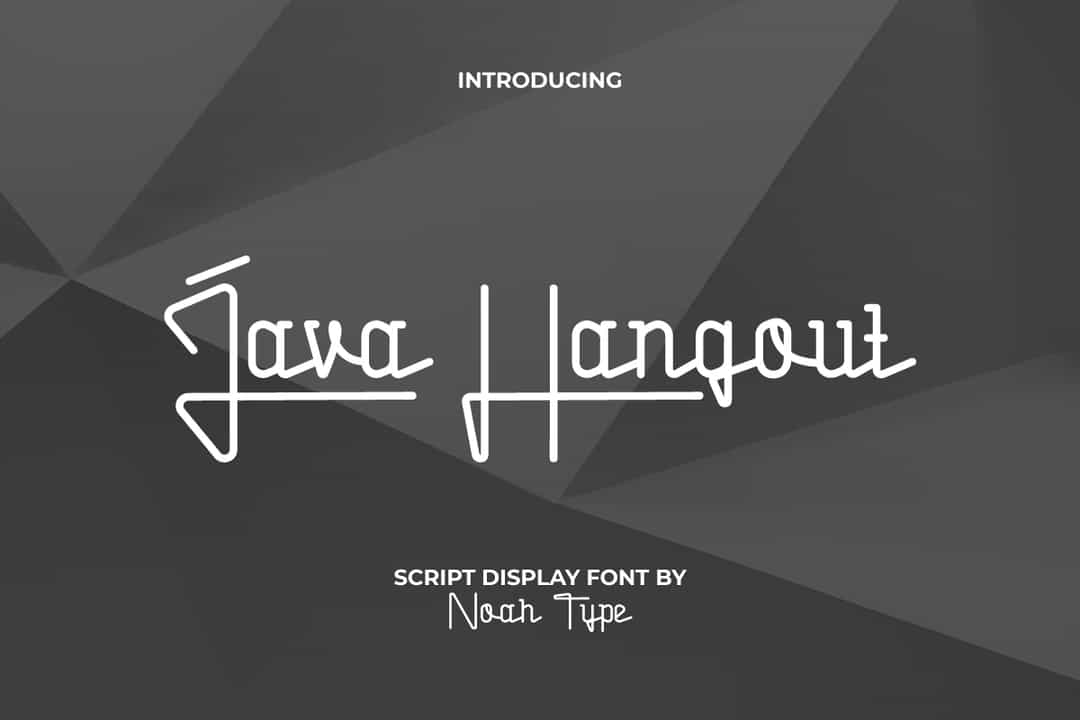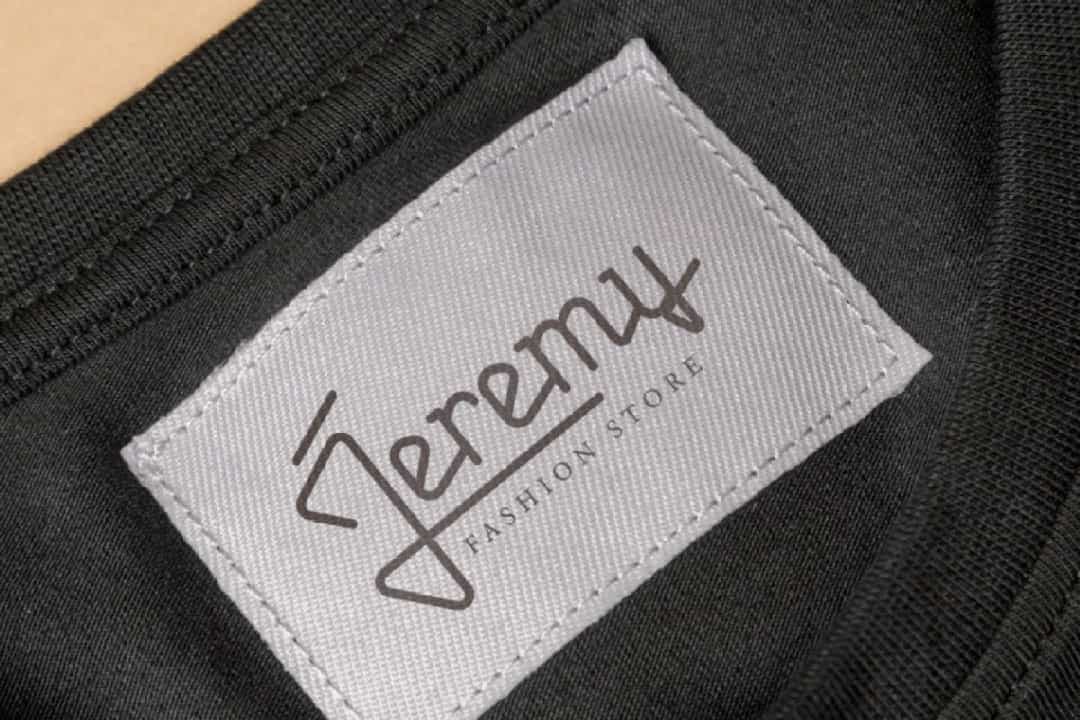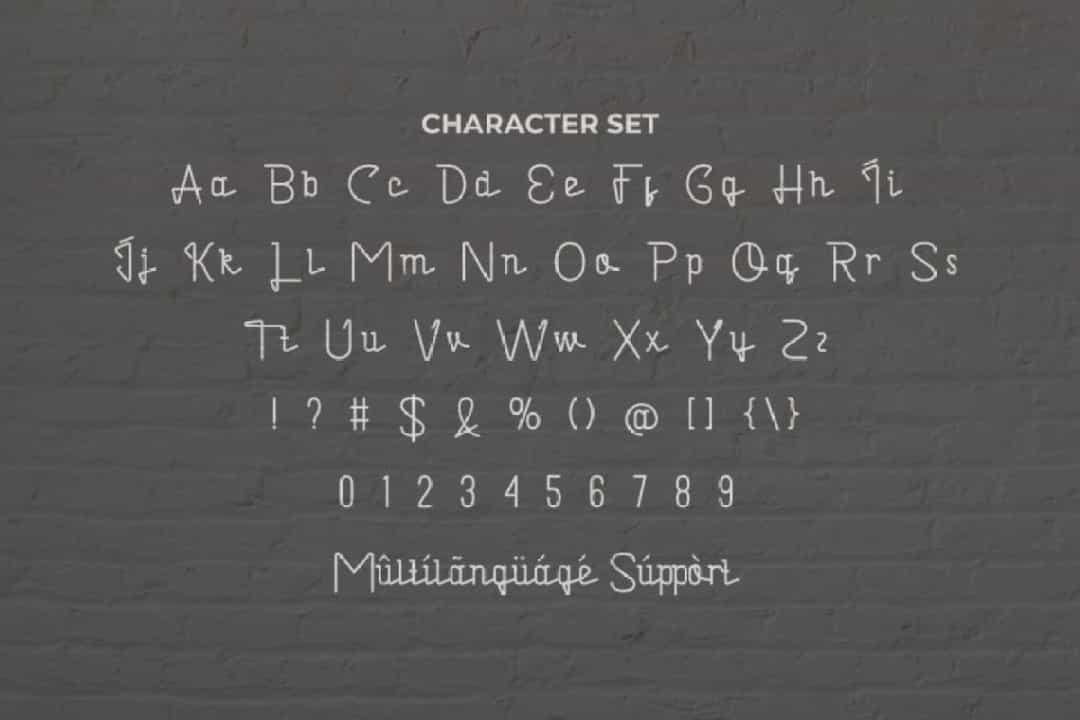
Discover Java Hangout Font, part of the Display Script collection—a versatile and unique font perfect for adding a personal touch to your projects. Download it for free and enjoy crafting designs with style, from invitations to social media posts. This font is available exclusively for personal use, giving you the freedom to create without limits. Unlock your creativity with Java Hangout Font today!
Java Hangout Font is a pen-writing display font with its own distinctive style that adds personal flair to any piece you write or design. It can be utilized across various industries such as accessories and barber shops, boutiques interior design fashion photography studio printing publishing wedding or event planner and many others!